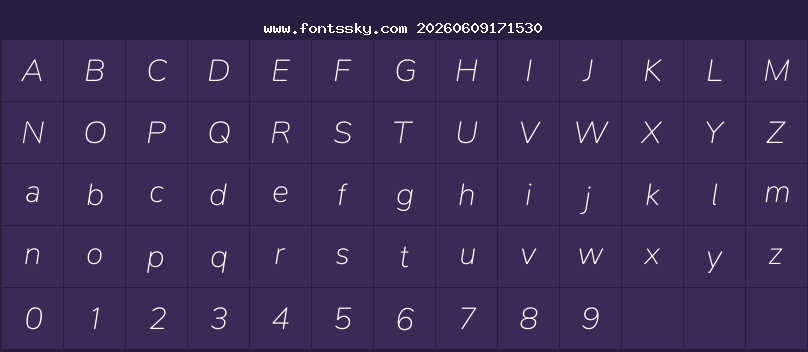
• Font Name: SN Pro ExtraLight
• Font ID: 1.005;NONE;SNPro-ExtraLightItalic
• Full Font Name: SN Pro ExtraLight Italic
• Version: Version 1.005
• PostScript Name: SNPro-ExtraLightItalic
• Character Count: 1003
• Copyright: Copyright 2024 The SN Pro Project Authors (https://github.com/supernotes/sn-pro)
• Designer: Tobias Whetton
• Manufacturer: Supernotes
About SN Pro ExtraLight.ttf
SN Pro ExtraLight.ttf is a modern, elegant sans-serif font designed for ultimate readability and visual harmony. Perfect for branding, headlines, web design, and print materials.